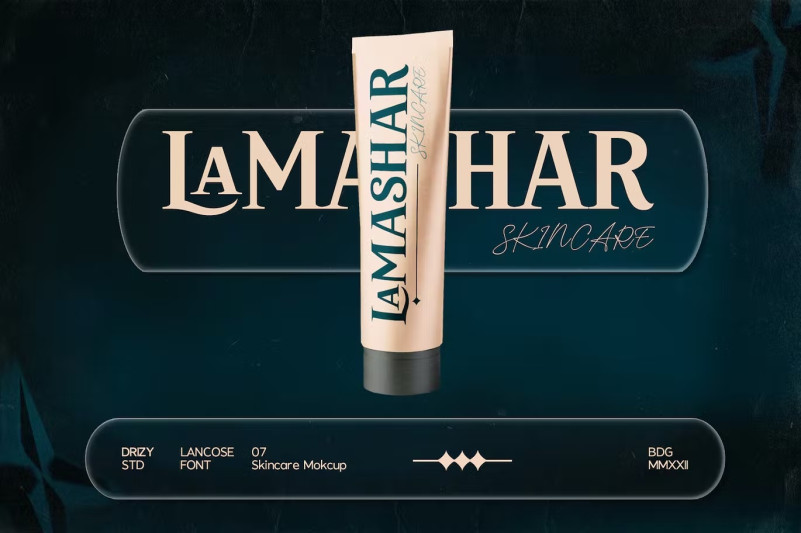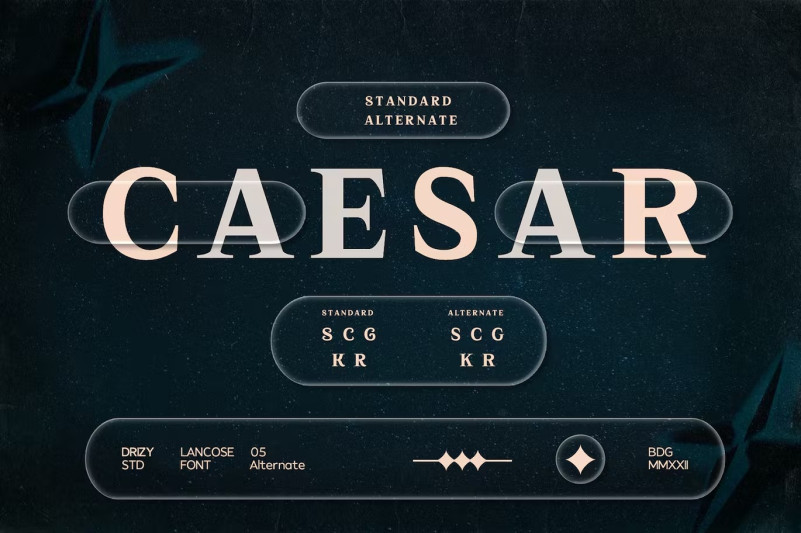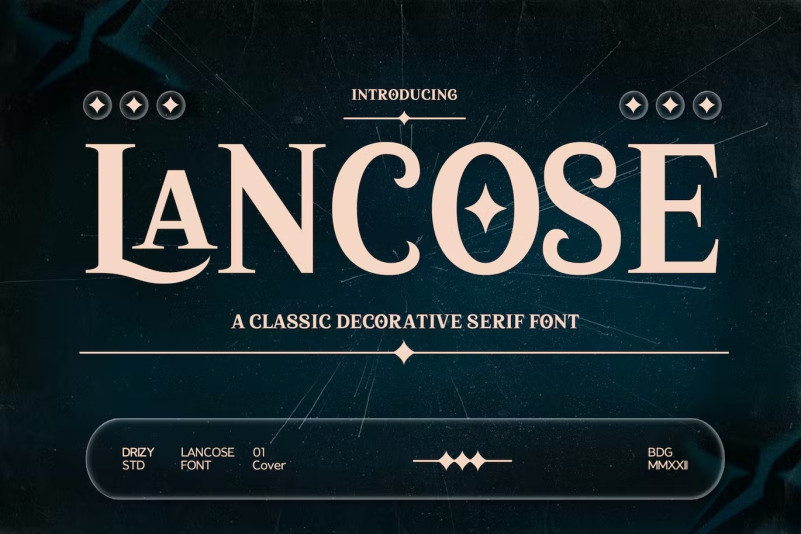
Lancose – Classic Serif Font
Lancose is a Classic Serif Font from Drizy studio. Offering all the basic styles you will need especially for vintage theme project.